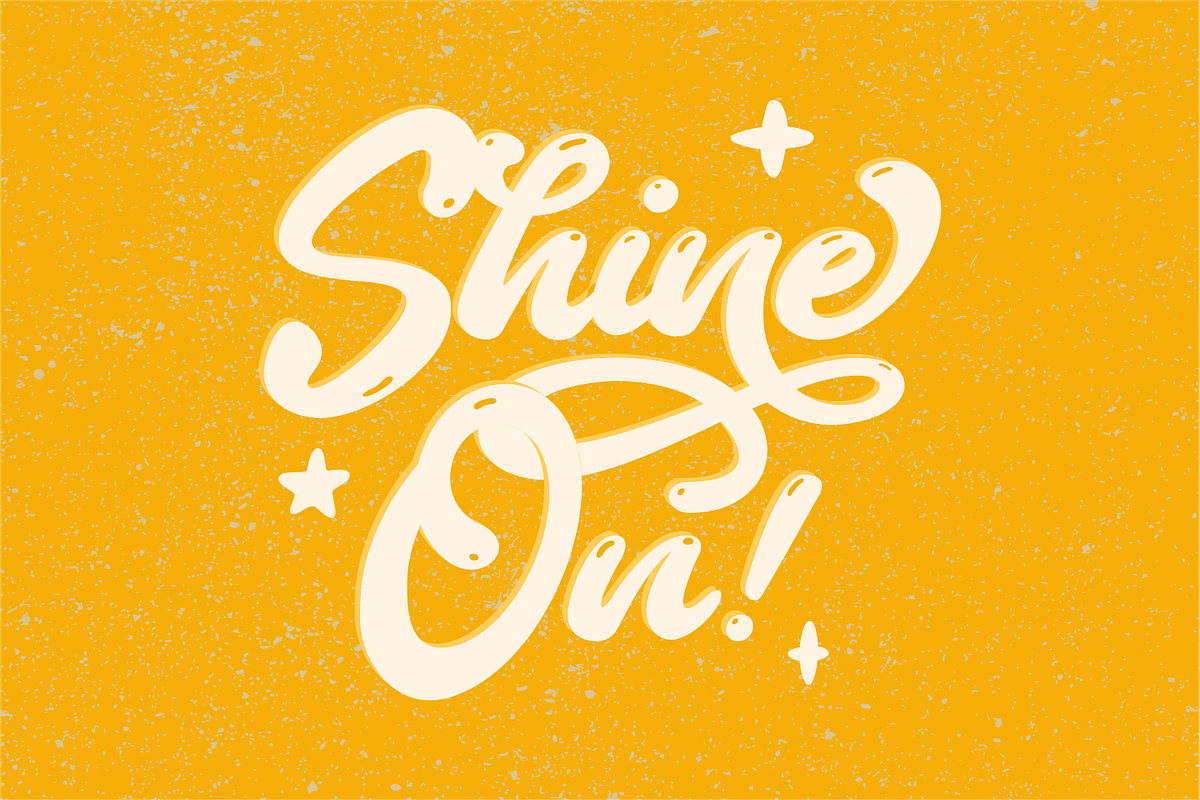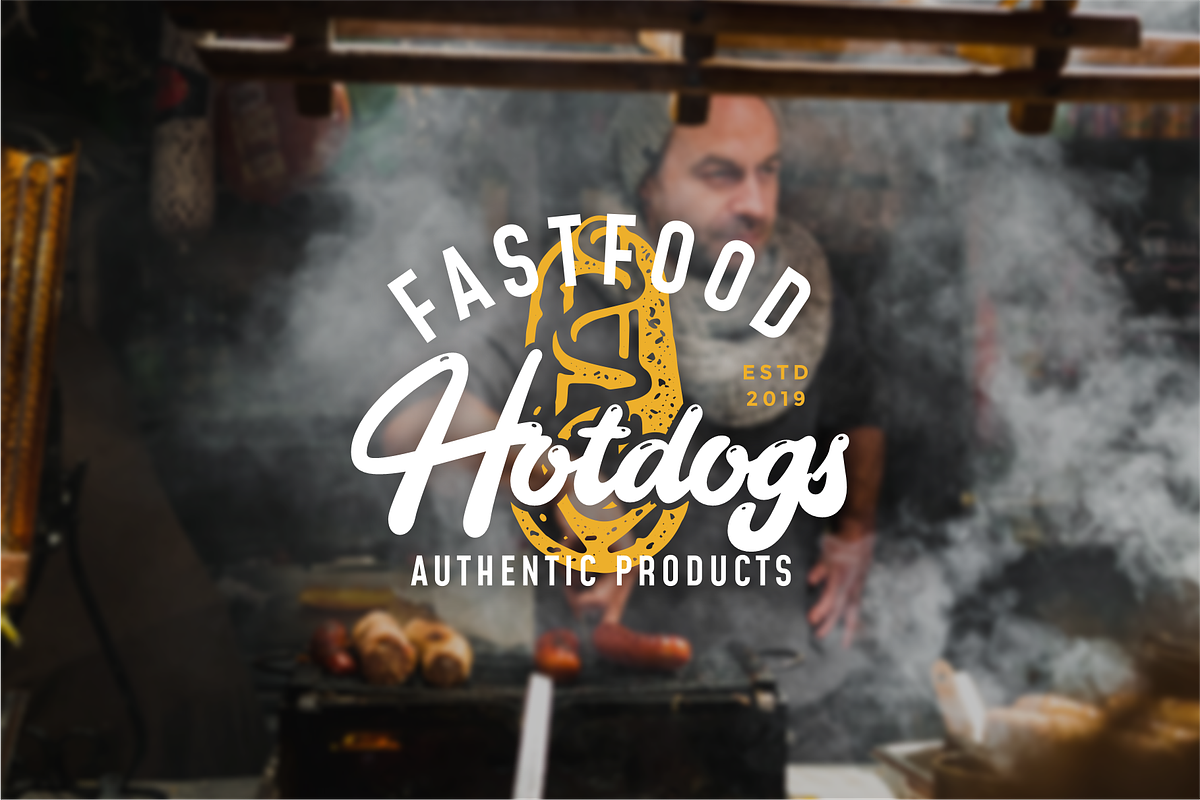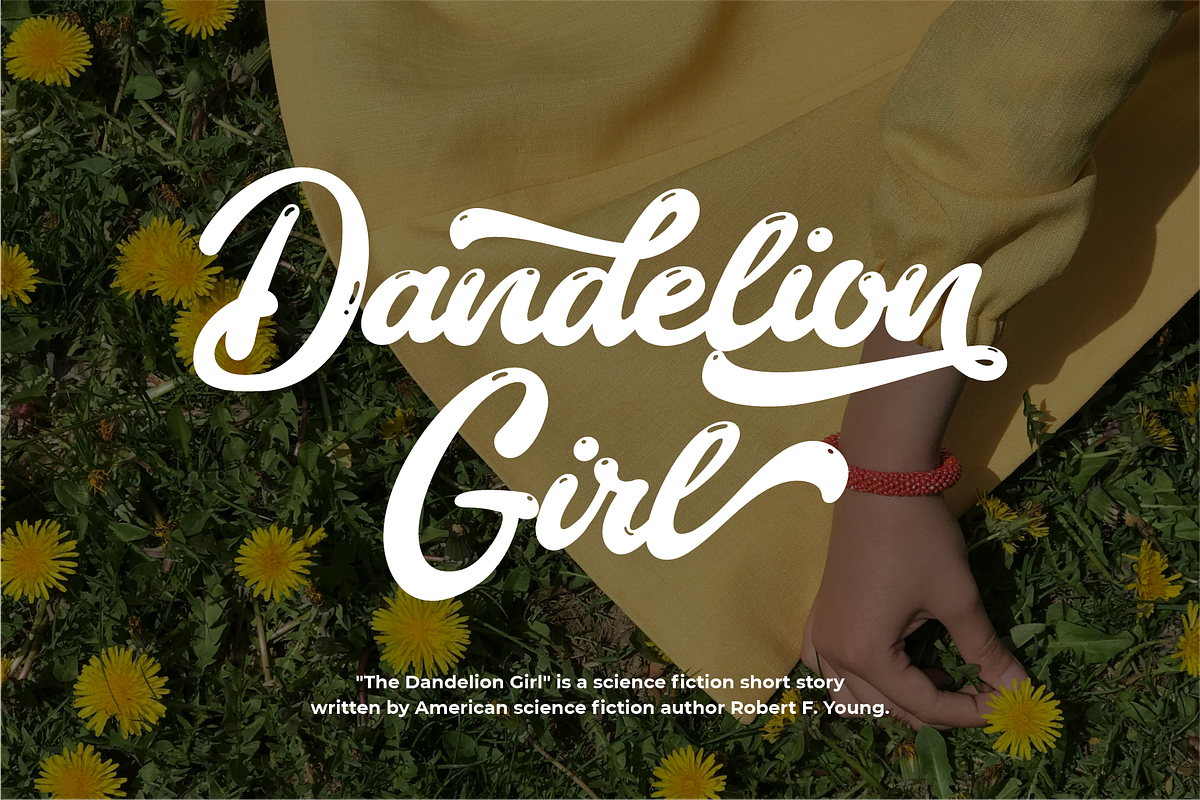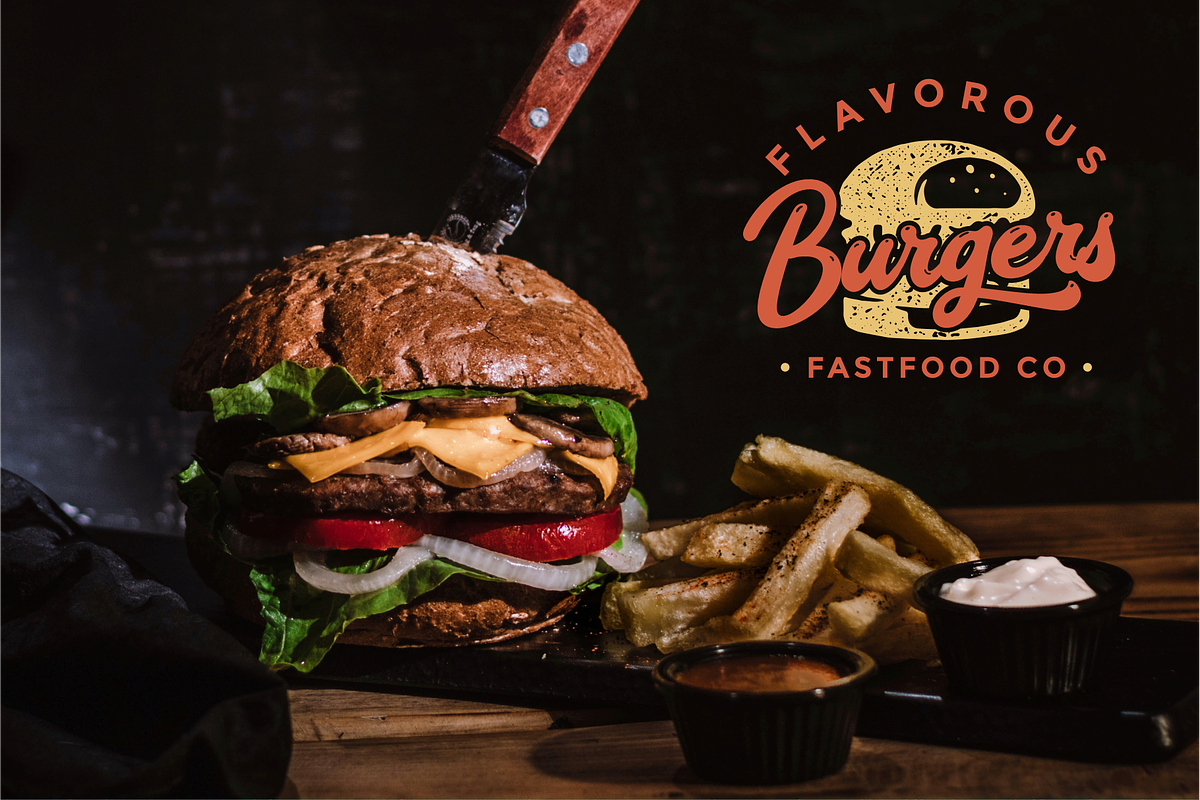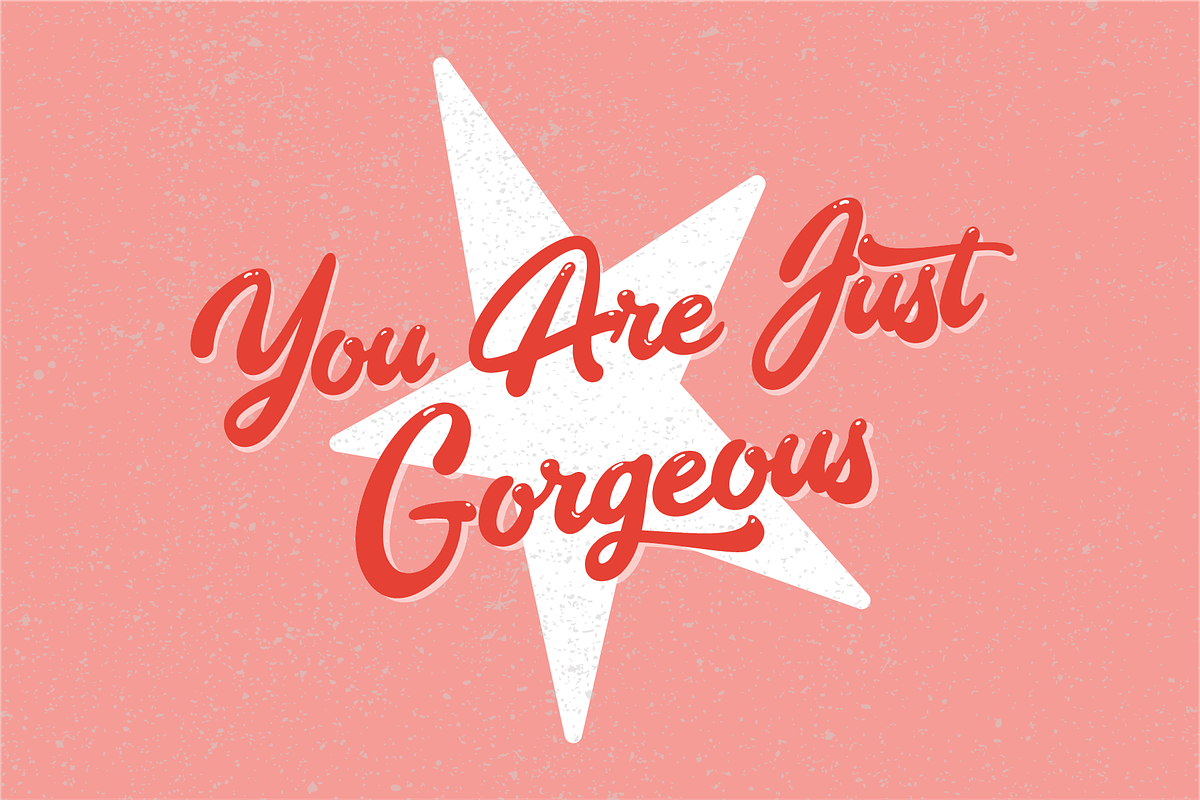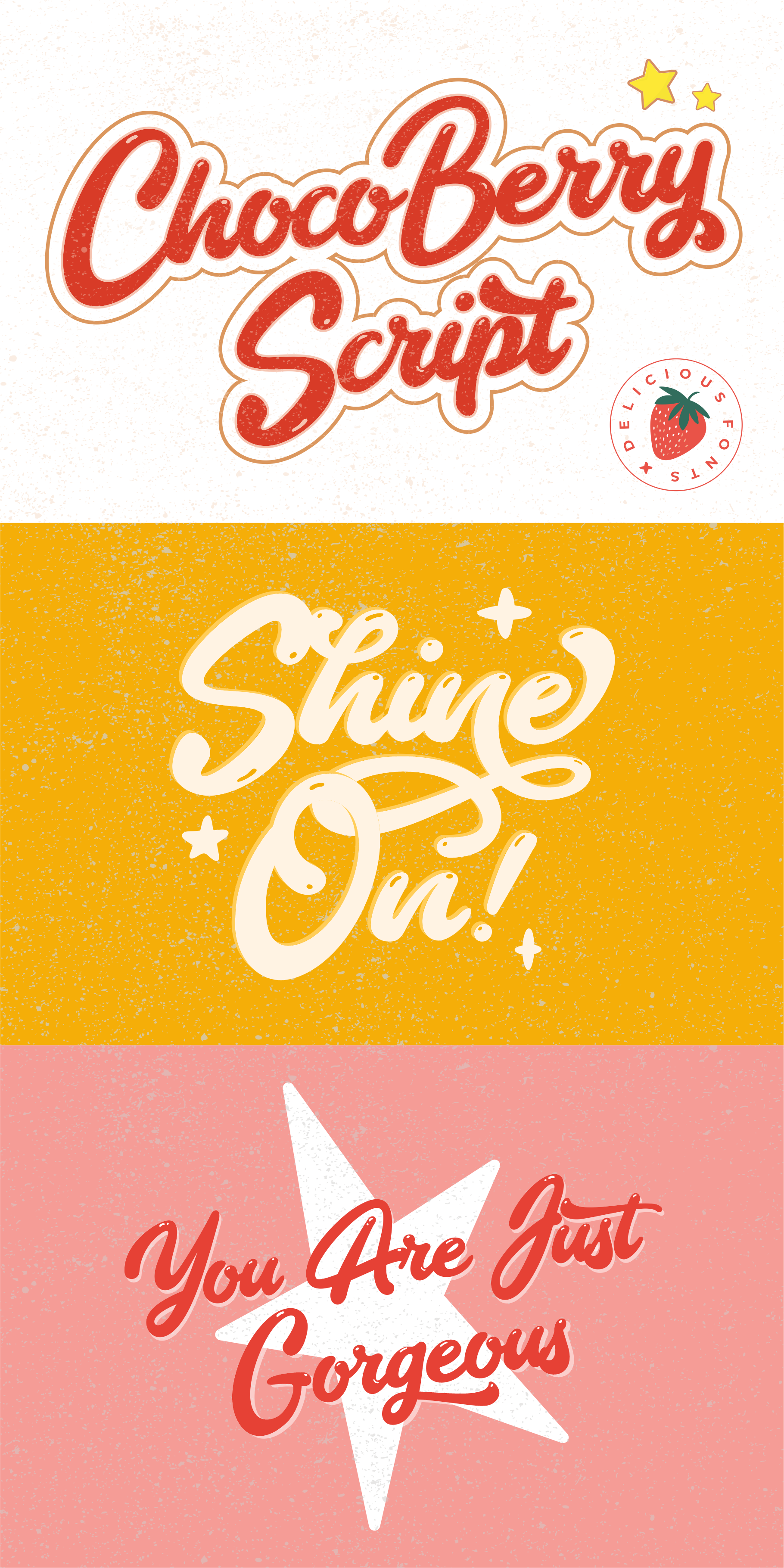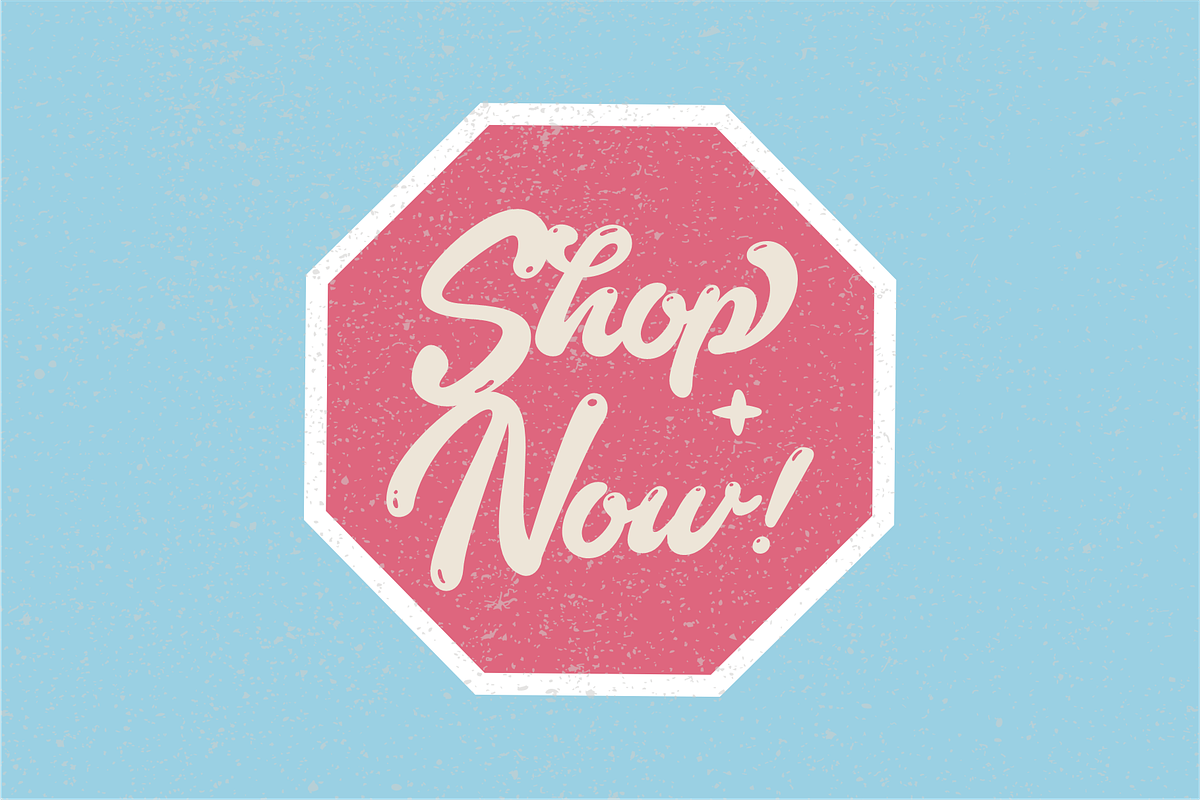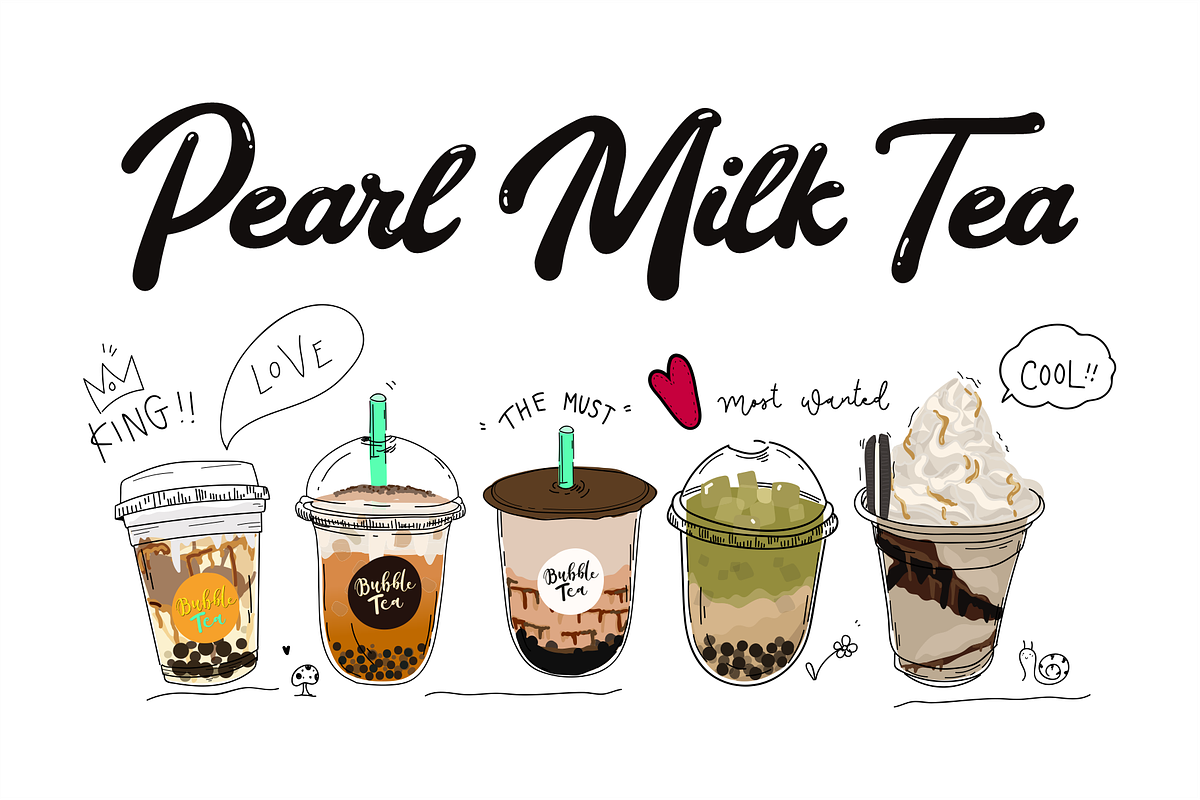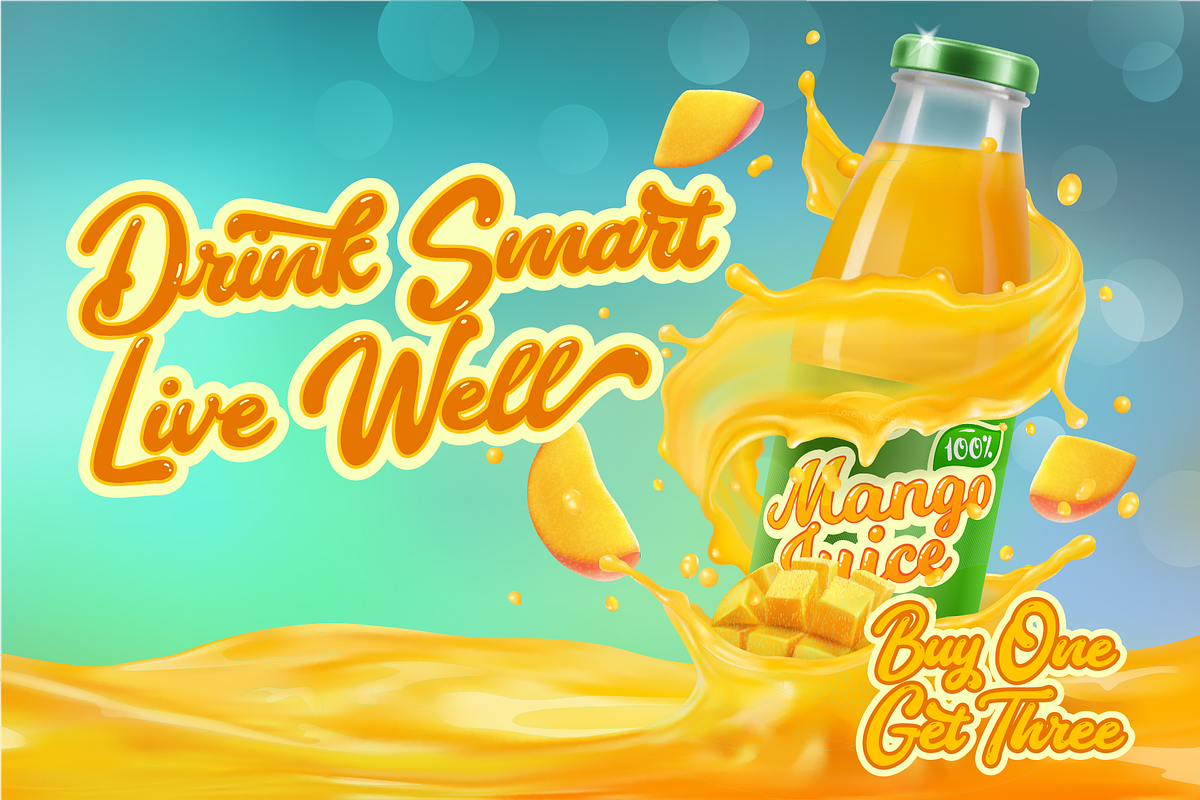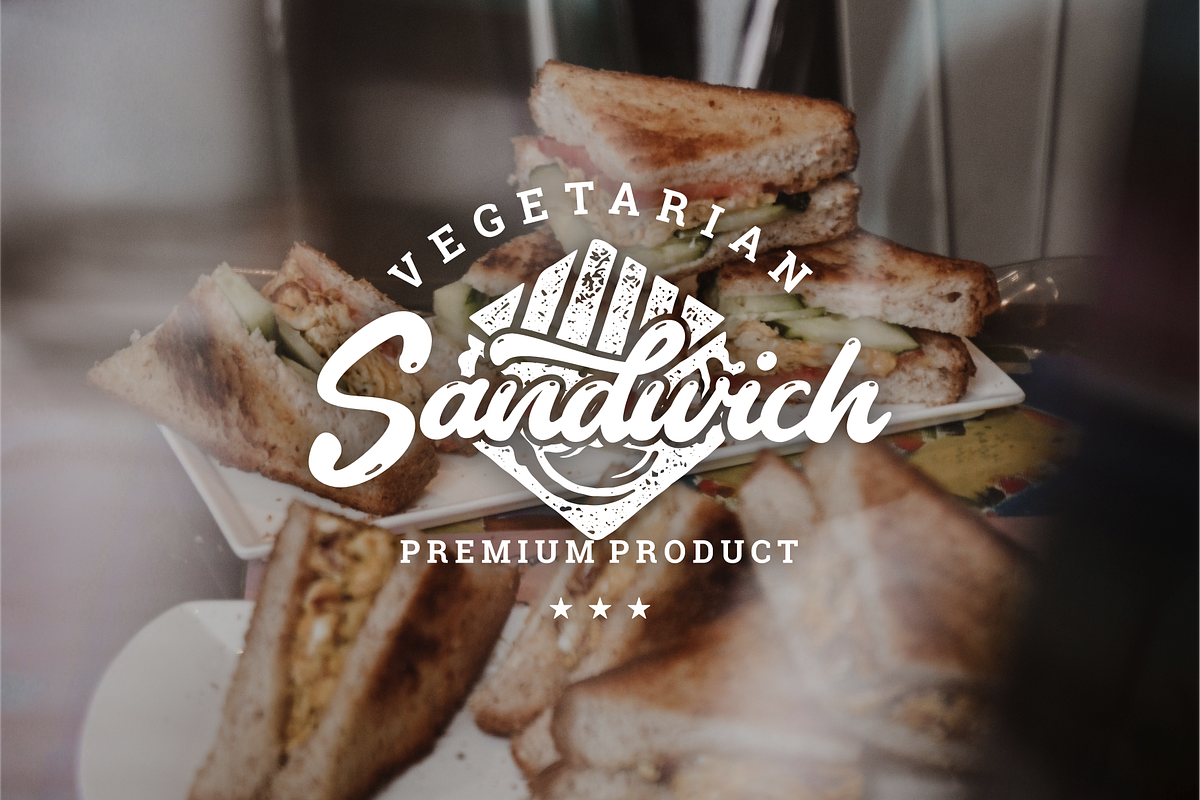
Choco Berry - Delicious Food Fonts
Choco Berry Script is a fun handmade fonts, carved with love. The graphics are carefully hand-lettered in a sweet and old-fashioned style, and will instantly give your next project that charming vintage look :)
Choco Berry is a very sweet display font. It has two versions, one with plain and one with special light effect characters.
Total 353 glyphs was crafted inside Choco Berry Some OpenType Features also added to this fun and delicious fonts.
Choco Berry is perfect for branding projects, logo, wedding designs, social media posts, advertisements, product packaging, product designs, label, photography, watermark, invitation, stationery and any projects that need handwriting taste.
- Stylistic Alternates, Swashes, & Ligatures
- Fonts include multilingual support for; Afrikaans, Albanian, Czech, Danish, Dutch, English, Estonian, Finnish, French, German, Hungarian, Italian, Latvian, Lithuanian, Norwegian, Polish, Portuguese, Slovak, Slovenian, Spanish, Swedish.